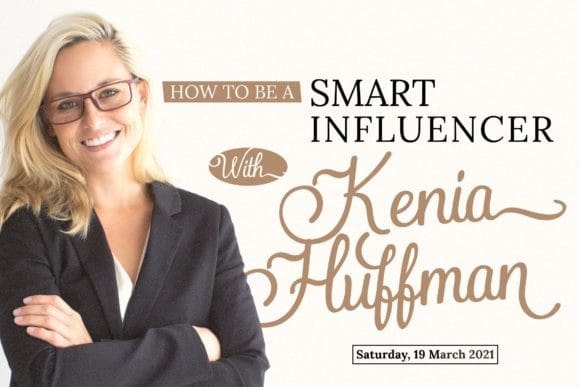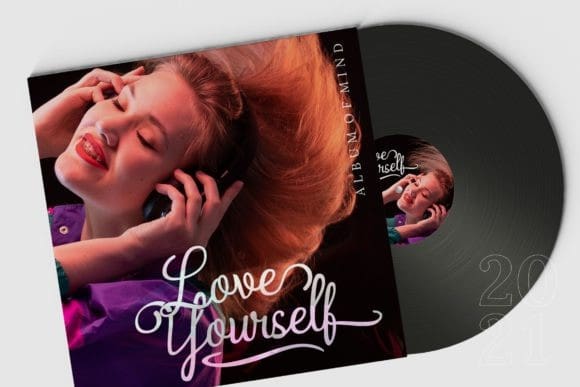
Michelle Kristin Font
Michelle Kristin Font is a thin lettered and graceful script font. Fall for its ravishing style and use it to create gorgeous designs. This font is PUA encoded which means you can access all glyphs and swashes with ease!